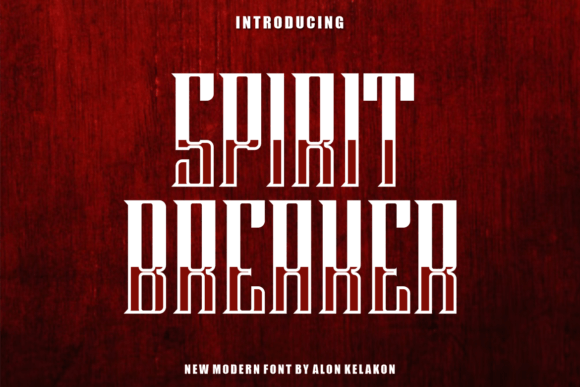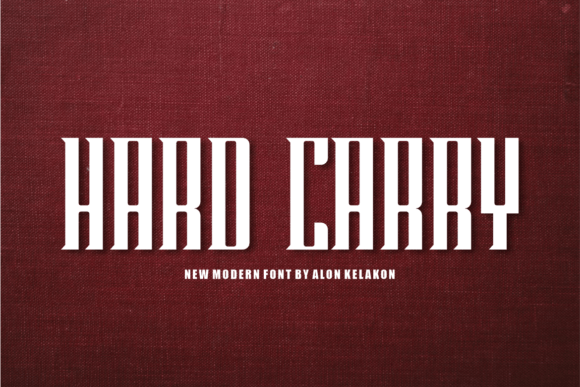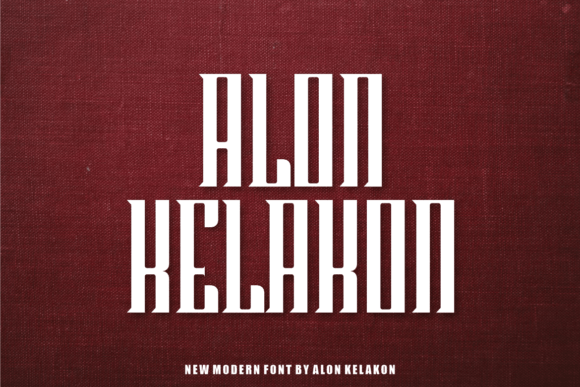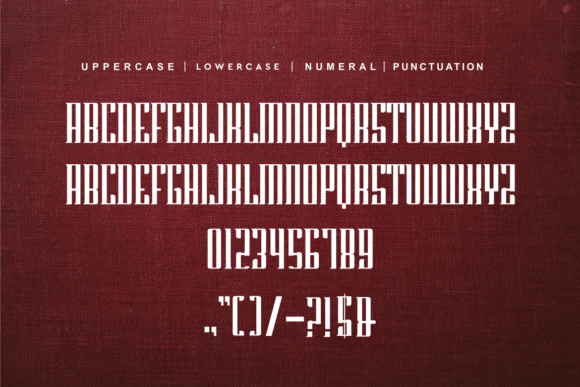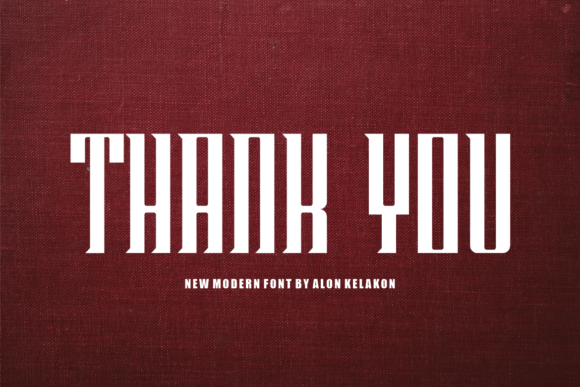
Spirit Breaker
Spirit Breaker: A Mysterious and Creative Slab Serif Font
Spirit Breaker is a mysterious and creative slab serif font, ready to use for labeling, clothing, movie screens, posters, movie titles, gigs, album covers, logos, and much more. Its unique design brings a touch of intrigue and creativity to various design projects.
Key Features of Spirit Breaker
• Mysterious Design: Offers an intriguing and enigmatic look suitable for various applications.
• Slab Serif Structure: Features distinctive serifs that add character and readability.
• Creative Versatility: Ideal for a wide range of design projects across different media.
• Impactful Appearance: Brings a strong visual presence to designs.
Ideal Uses for Spirit Breaker
Spirit Breaker’s unique characteristics make it particularly well-suited for:
When incorporating Spirit Breaker into your designs, consider these tips:
• Use for headlines or short blocks of text to showcase its mysterious style.
• Experiment with different sizes to highlight the font’s creative features.
• Utilize its impactful appearance to create designs that command attention.
Spirit Breaker is an excellent choice for designers looking to add a mysterious and creative slab serif font to their typographic toolkit. Its ability to bring intrigue and impact to various design projects makes it stand out in the world of typography. Whether you’re working on clothing designs, creating movie posters, or developing branding for creative industries, Spirit Breaker offers the perfect blend of enigma and creativity.
Furthermore, Spirit Breaker’s unique design allows it to shine in various contexts. From album covers to product labels, this font can elevate your projects with its distinctive style. Its mysterious yet readable appearance works particularly well in designs that aim to evoke curiosity and engagement.
In conclusion, Spirit Breaker is a font that truly captures the essence of mystery and creativity in typography. Its versatility across different media showcases its adaptability to various design needs. For those looking to add a touch of intrigue to their work, Spirit Breaker can enhance themed creations with its distinctive style. It’s the perfect choice for designers seeking to make a bold, mysterious impact across a wide range of creative projects.